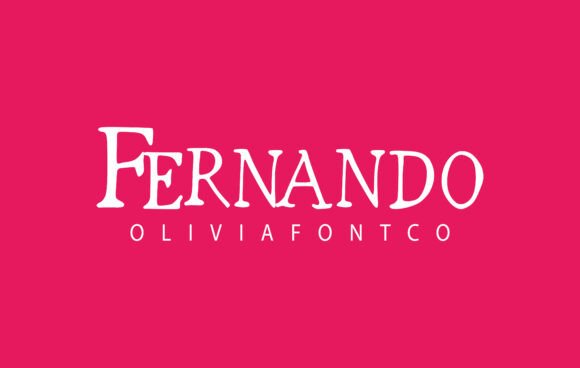
Fernando Font: The Authentic Handwritten Font with a Romantic Touch
In the world of typography, fonts play a crucial role in conveying the tone and personality of a brand or creative project. With the numerous font options available, it can be challenging to find the perfect one that adds a unique touch to your design. However, if you’re looking for an authentic handwritten font with a romantic flair, look no further than Fernando Font. In this article, we’ll explore the features and benefits of Fernando Font, and how it can elevate your creative ideas to new heights.
What is Fernando Font?
Fernando Font is a beautifully crafted handwritten font that exudes a romantic touch. Expertly designed to be a true favorite among designers and creatives, this font has the potential to take your projects to the highest level. With its unique and elegant style, Fernando Font is perfect for a wide range of design applications, from magazine headlines to social media graphics, branding, wedding invitations, and more.
Key Features of Fernando Font
- Authentic Handwritten Style: Fernando Font boasts an authentic handwritten style that adds a personal touch to your designs. Its unique and organic feel makes it stand out from other fonts.
- Romantic Touch: This font’s romantic flair makes it perfect for designs that require a touch of elegance and sophistication.
- Legibility: Fernando Font is designed to be highly legible, making it suitable for use as both title and body text.
- Versatility: This font is incredibly versatile and can be used for a wide range of design projects, including magazine headlines, social media graphics, branding, wedding invitations, and more.
Benefits of Using Fernando Font
Using Fernando Font in your designs can have numerous benefits. Here are a few:
- Adds a Personal Touch: Fernando Font’s handwritten style adds a personal touch to your designs, making them more relatable and engaging.
- Enhances Brand Identity: This font’s unique and elegant style can help enhance your brand’s identity and make it more memorable.
- Increases Readability: Fernando Font’s high legibility ensures that your text is easy to read, making it perfect for body text and titles.
- Versatile and Adaptable: This font’s versatility makes it suitable for use in various design projects, from print to digital media.
Design Applications for Fernando Font
Fernando Font is an incredibly versatile font that can be used in a wide range of design applications. Here are a few ideas to get you started:
- Magazine Headlines: Use Fernando Font to create eye-catching headlines for your magazine or publication.
- Social Media Graphics: Add a touch of elegance to your social media graphics with Fernando Font.
- Branding: Use this font to create a unique and memorable brand identity.
- Wedding Invitations: Fernando Font’s romantic flair makes it perfect for wedding invitations and other special occasion designs.
- Cards and Stationery: Use this font to create beautiful and elegant cards and stationery.
Tips for Using Fernando Font Effectively
To get the most out of Fernando Font, here are a few tips to keep in mind:
- Use it Sparingly: Use Fernando Font sparingly to avoid overwhelming your design. Use it for headings or titles to add emphasis.
- Pair it with Other Fonts: Pair Fernando Font with other fonts to create a unique and visually appealing combination.
- Experiment with Colors: Experiment with different colors to find the perfect combination that complements your design.
In conclusion, Fernando Font is an authentic handwritten font with a romantic touch that can elevate your creative ideas to new heights. With its unique and elegant style, high legibility, and versatility, this font is perfect for a wide range of design applications. Whether you’re a designer, creative, or business owner, Fernando Font is an excellent choice for adding a personal touch to your designs.
- What is Fernando Font?: Fernando Font is an authentic handwritten font with a romantic touch.
- What is Fernando Font used for?: Fernando Font can be used for a wide range of design applications, including magazine headlines, social media graphics, branding, wedding invitations, and more.
- Is Fernando Font legible?: Yes, Fernando Font is designed to be highly legible, making it suitable for use as both title and body text.